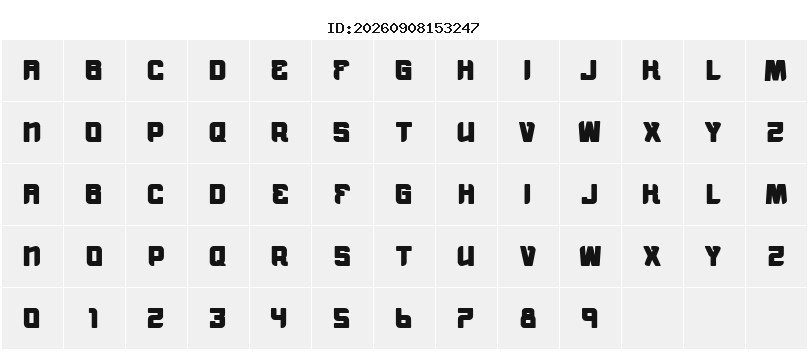
vtks morning rain BOLD Preview
• Font Name: vtks morning rain BOLD
• Full Font Name: vtks morning rain BOLD
• Version: Version 1.00 April 7, 2010, initial release
• Designer: DOUGLAS VITKAUSKAS
About vtks morning rain BOLD.ttf
vtks morning rain BOLD.ttf is a modern, elegant sans-serif font designed for ultimate readability and visual harmony. Perfect for branding, headlines, web design, and print materials.